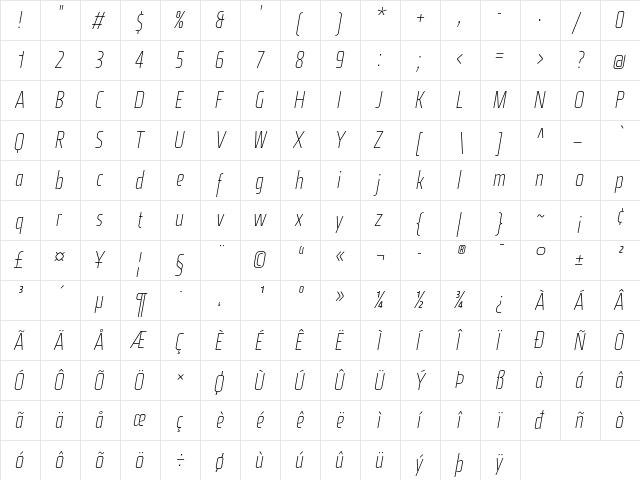
Fishmonger ECT Italic Font Preview
Fishmonger ECT Italic
Fishmonger ECT Italic Font Details
| Foundry | Tomas Brousil |
Design Context for Fishmonger ECT Typeface
Fishmonger ECT offers clean, dependable letterforms without strong stylistic allegiance, making it a practical choice for designers who need flexibility. The dynamic lean of this cut emphasises speed and emphasis in any layout.
Pro Tip: Try Fishmonger ECT for annotation and caption copy alongside an upright companion — the contrast in angle creates a dynamic but ordered typographic system.